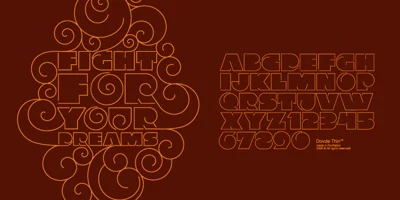
Dovde Font
Dovde Font is perfect for peaceful design projects including dove sanctuaries, peace organizations, meditation centers, spiritual wellness retreats, harmony-focused lifestyle brands, peaceful advocacy groups, serene healing centers, and tranquil mindfulness campaigns. This gentle typeface works perfectly for peace education programs, conflict resolution services, mindfulness coaching, spiritual guidance centers, and projects that celebrate the universal symbols of peace and the gentle spirit of harmony in human relationships.
What makes Dovde Font exciting is its peaceful dove-inspired character that perfectly captures the essence of tranquility and harmonious communication. The font features flowing letterforms with gentle curves that reflect the graceful movement and peaceful nature of doves in flight. Its serene design elements embody the spirit of peace advocacy and gentle wisdom, making it perfect for projects that need to convey harmony, compassion, and connection to peace movements. The carefully crafted peaceful proportions create an atmosphere of spiritual sophistication and gentle authenticity.
Dovde Font comes in multiple family variations including peaceful, gentle, serene, and harmonious styles. Each weight maintains the distinctive dove character while offering different levels of peaceful intensity and tranquil presence. The font family includes peace alternates, gentle ligatures, and harmony variations that provide designers with comprehensive options for creating truly peaceful and authentically serene typographic compositions that celebrate peace excellence.
Whether you're designing peace branding, creating harmony marketing materials, or developing tranquil promotional graphics, Dovde Font provides the perfect typographic foundation for projects that celebrate peaceful excellence and gentle sophistication. This remarkable typeface transforms ordinary text into compelling expressions of peace wisdom and harmonious energy. Download this gentle font today and inspire your design projects with the peaceful authenticity and dove-like grace that captures the essential spirit of harmony and universal peace movements.